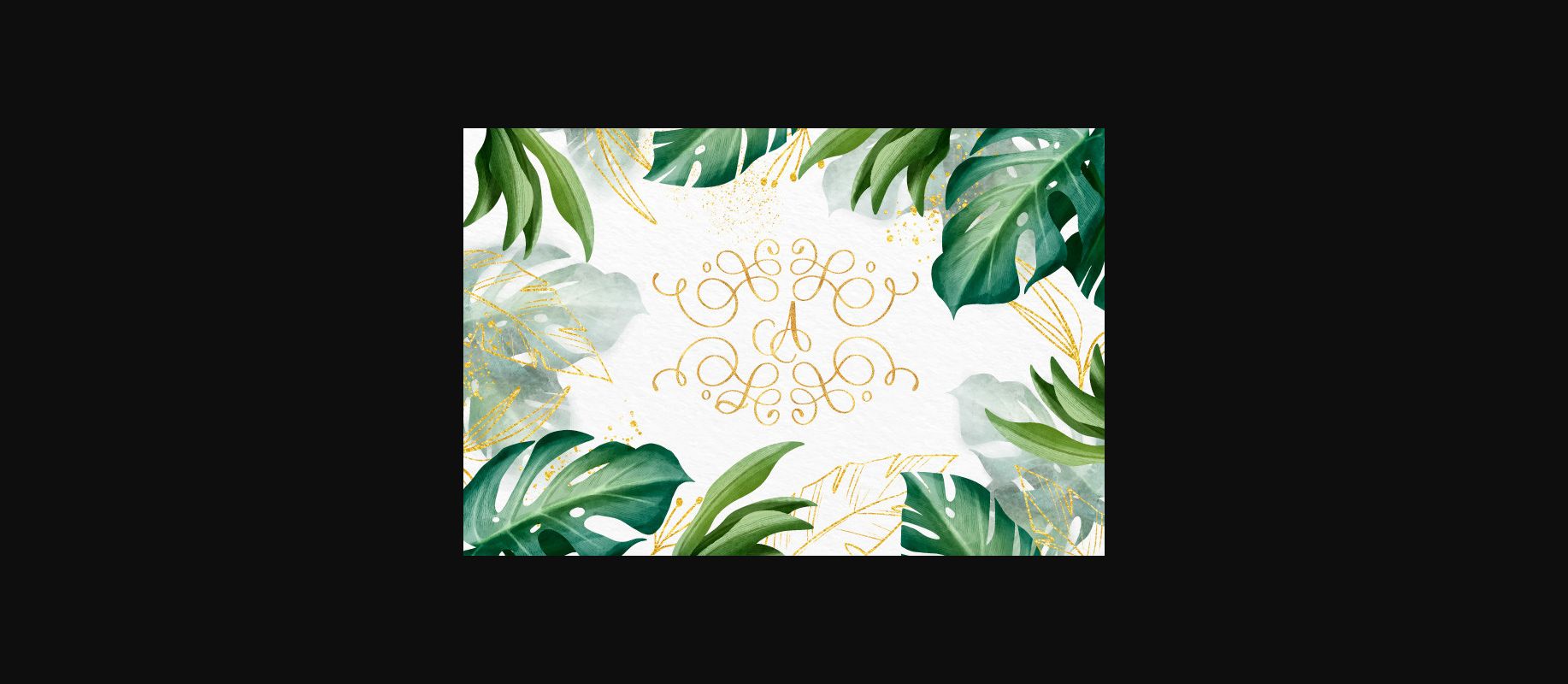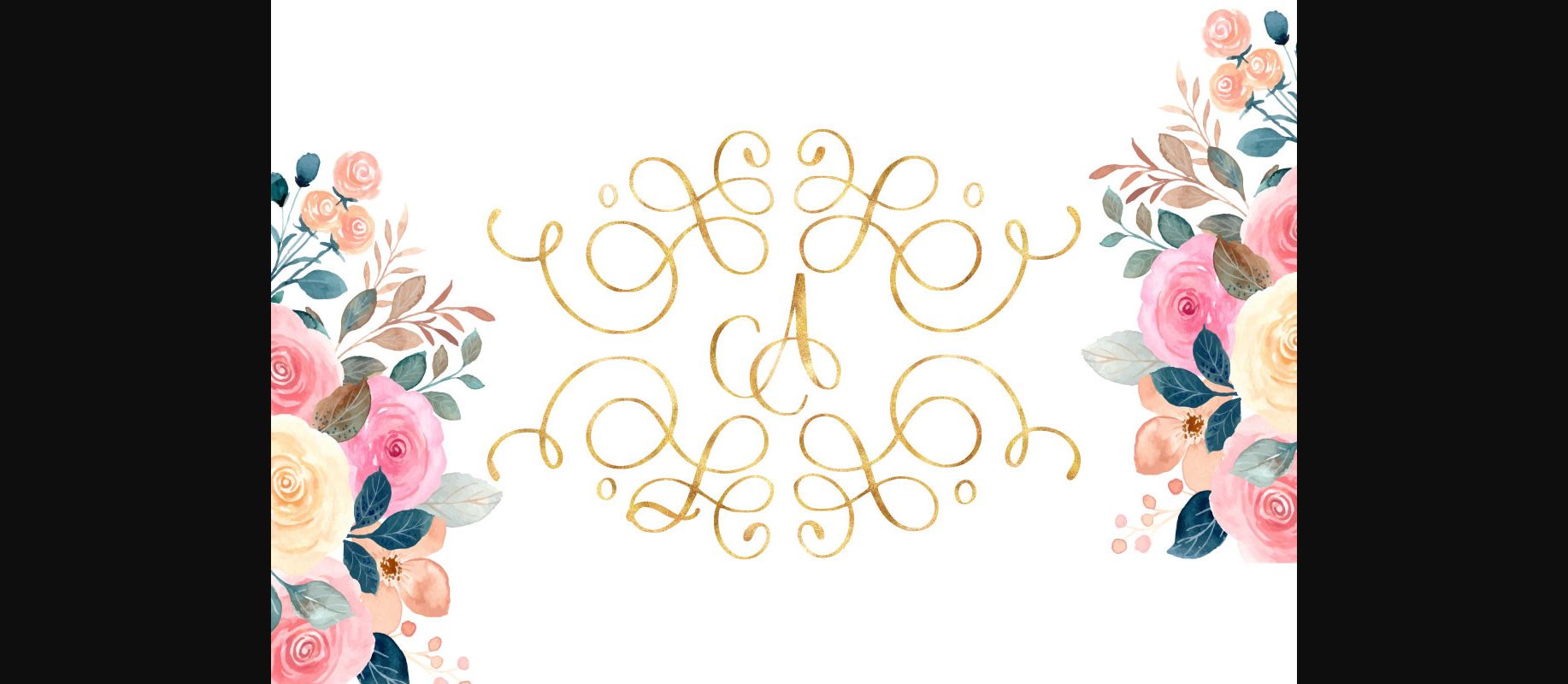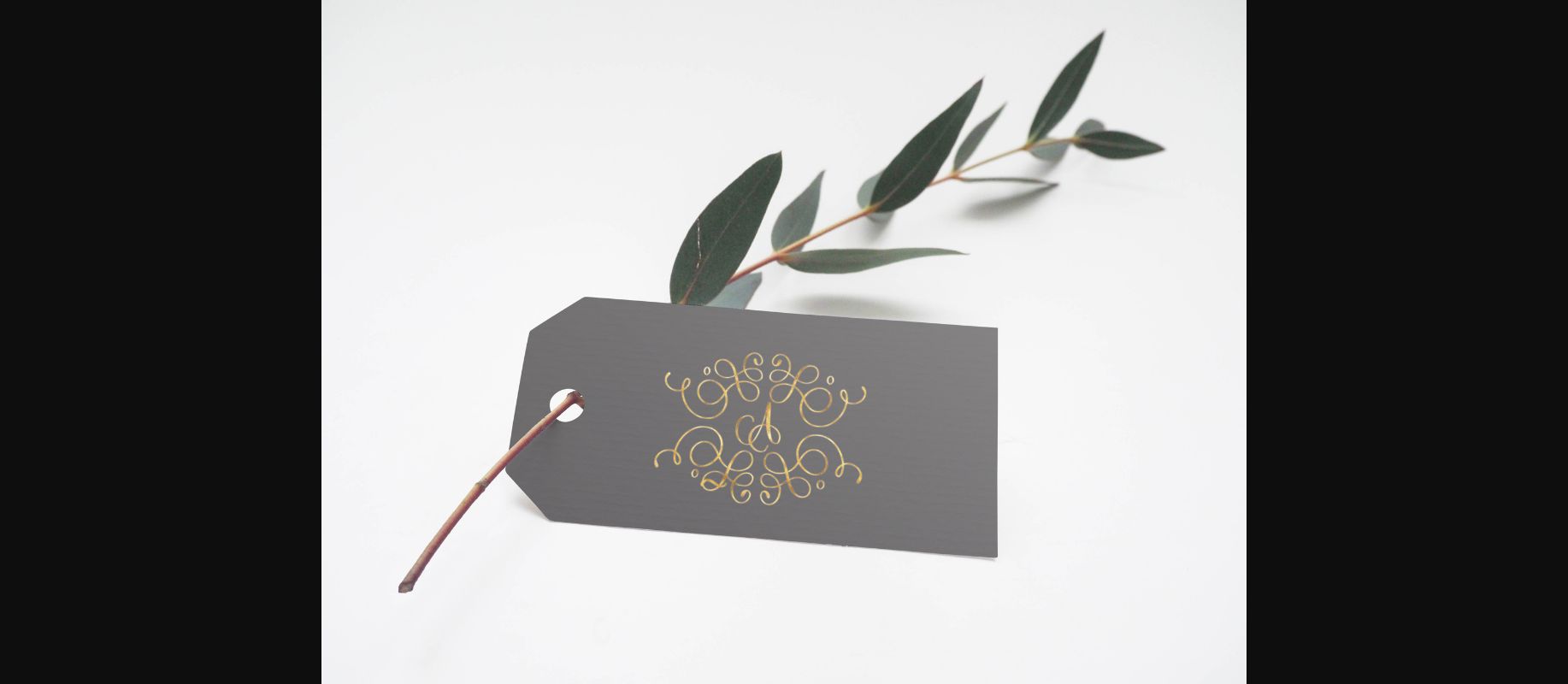
About Monogram Wedding Font
Monogram Wedding is a cool, highly detailed decorative font. This font was particularly crafted for those who need a beautiful and refreshing look to their designs.